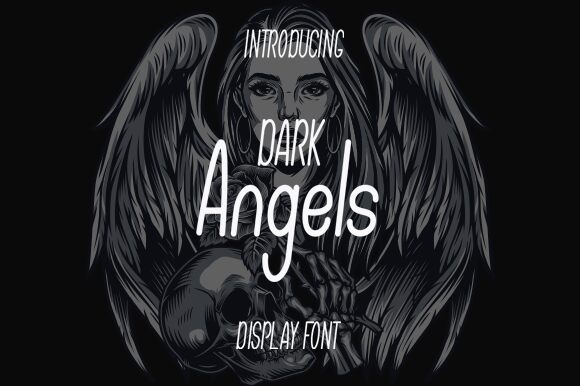
Dark Angels
Dark Angels, designed by Anjas Cov Cava Lera, is a stunning display font that is perfect for projects that require a touch of elegance and sophistication. With its light weight and extra-condensed width, it exudes an air of delicacy and refinement that adds a touch of class to any design. Its sharp angles and clean lines give it a modern edge, while its intricate details make it suitable for both print and digital media. Use this semi-bold font in branding projects, logos, invitations, or editorial designs to create an impact that is sure to leave a lasting impression!